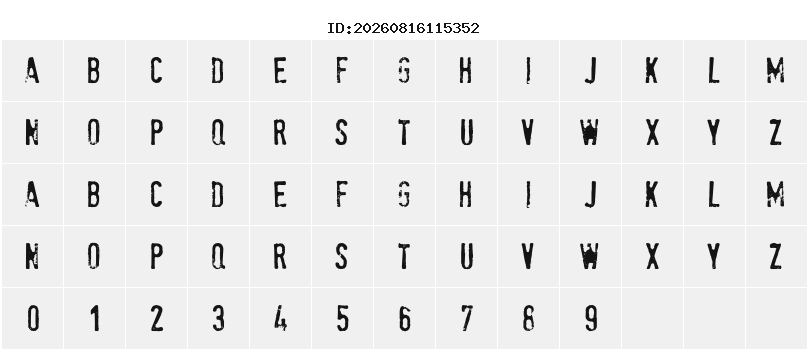
• Font Name: stamPete
• Designer: J O E B O B graphics
About stamPete.otf
stamPete.otf is a modern, elegant sans-serif font designed for ultimate readability and visual harmony. Perfect for branding, headlines, web design, and print materials.